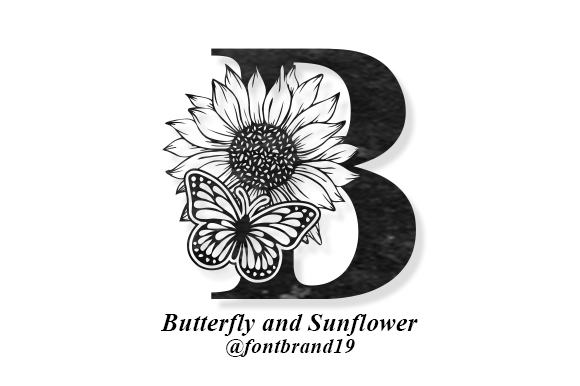
Introducing the Enchanting Butterfly and Sunflower Font
The world of typography is vast and wondrous, offering a diverse array of fonts to suit every creative need. Among these, the Butterfly and Sunflower Font stands out as a beacon of elegance and charm. This exquisite font, coupled with its decorative monogram, is designed to infuse your projects with a touch of sophistication and whimsy. Whether you’re planning a wedding, crafting stationery, or simply looking to elevate your social media posts, the Butterfly and Sunflower Font is an ideal choice.
The Essence of Butterfly and Sunflower Monogram
The Butterfly and Sunflower Monogram is not just any ordinary font. It’s an elegant decorative font that features lovely ornaments, meticulously crafted to add a layer of beauty to any text. The monogram’s design is inspired by the delicate dance of butterflies and the radiant beauty of sunflowers, bringing a sense of joy and warmth to your creations. Its authentic feel is undeniable, making it a perfect fit for projects where you want to convey a sense of love, happiness, and celebration.
Applications of the Butterfly and Sunflower Font
Wedding Invitations
Weddings are a celebration of love and commitment, and the invitations set the tone for the entire event. With the Butterfly and Sunflower Font, you can create gorgeous wedding invitations that are both elegant and personal. The font’s decorative elements and romantic feel make it an excellent choice for couples looking to add a unique touch to their wedding stationery.
Beautiful Stationery Art
Beyond wedding invitations, the Butterfly and Sunflower Font can be used to create a wide range of stationery art. From letterheads and notebooks to journals and planners, this font adds a decorative flair that elevates your stationery from ordinary to extraordinary. Its versatility allows you to experiment with different designs and layouts, ensuring your stationery stands out.
Eye-Catching Social Media Posts
In the digital age, social media is a powerful tool for communication and expression. The Butterfly and Sunflower Font can help you create eye-catching social media posts that capture the attention of your audience. Whether you’re a business looking to brand your content or an individual wanting to share your creativity, this font’s unique charm can make your posts stand out in crowded feeds.
Cute Greeting Cards
Greeting cards are a thoughtful way to connect with others, and the right font can make all the difference. The Butterfly and Sunflower Font is perfect for creating cute greeting cards for various occasions, from birthdays and anniversaries to thank-you notes and get-well cards. The font’s playful yet elegant design ensures your cards are both heartfelt and visually appealing.
Why Choose the Butterfly and Sunflower Font?
With so many fonts available, why choose the Butterfly and Sunflower Font? The answer lies in its unique blend of elegance, charm, and versatility. This font is not just a tool for typing; it’s a means of expression, a way to convey emotions and add beauty to your words. Its authentic feel and decorative elements make it stand out, allowing you to create projects that are truly one-of-a-kind.
Tips for Using the Butterfly and Sunflower Font
Pair it with Complementary Fonts
To maximize the impact of the Butterfly and Sunflower Font, consider pairing it with complementary fonts. A clean, sans-serif font can provide a nice contrast to the decorative elements of the Butterfly and Sunflower Font, creating a balanced and visually appealing design.
Experiment with Colors and Textures
Don’t be afraid to experiment with different colors and textures when using the Butterfly and Sunflower Font. The font’s design lends itself well to various color schemes and textures, allowing you to customize your projects to fit your personal style or brand identity.
Use it for Headers and Titles
The Butterfly and Sunflower Font is particularly effective when used for headers and titles. Its decorative elements make it stand out, drawing attention to key parts of your design. Use it to create striking headlines, section dividers, or any other element you want to highlight.
The Butterfly and Sunflower Font is a beautiful and versatile decorative font that can add a touch of elegance and whimsy to your projects. Whether you’re creating wedding invitations, stationery art, social media posts, or greeting cards, this font offers a unique combination of charm and sophistication. By incorporating the Butterfly and Sunflower Font into your designs, you can create stunning works that capture the hearts of your audience.